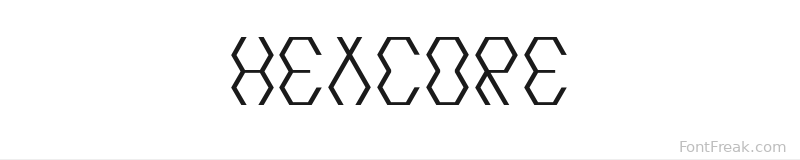
Hexcore
Hexcore by GGBot is a striking display font that captures attention with its unique geometric design and clean lines. This sans-serif typeface features a modern aesthetic characterized by its consistent stroke weight and minimal contrast, making it a versatile choice for a variety of creative projects. The spacing is well-balanced, enhancing readability while allowing for an engaging visual flow. Its distinctive hexagonal shapes and angular forms give it a futuristic vibe, making it ideal for projects that aim to convey innovation and technology.
The Hexcore font is perfect for a range of applications. Its bold, eye-catching style makes it an excellent choice for movie posters, where it can effectively draw viewers' interest. Additionally, it works well in branding for tech startups, offering a sleek and professional look that resonates with modern audiences. Graphic designers will find it suitable for website headers, as it stands out without overwhelming the viewer. Furthermore, small business owners can utilize Hexcore for marketing materials, ensuring their content remains memorable and impactful.
What sets Hexcore apart is its blend of contemporary design and functionality. The font’s geometric nature offers a fresh take on traditional typefaces, allowing users to create distinctive, modern layouts. Whether for digital or print media, Hexcore delivers a unique visual identity that captures the essence of innovation, making it an essential addition to any designer's toolkit.